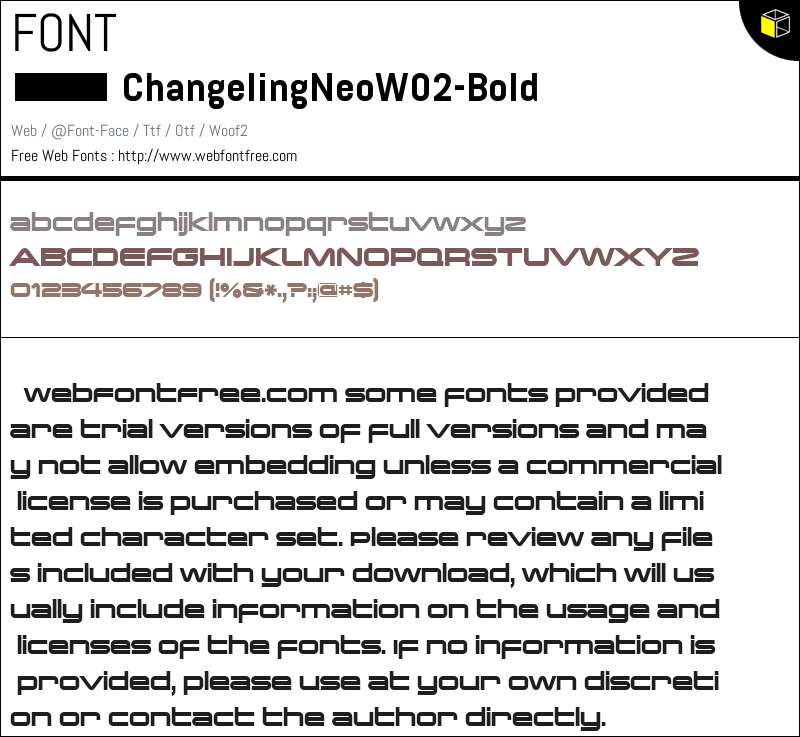
Changeling Neo Bold Font Free . Web download changeling neo bold font. Alternate characters.* 14 stylistic sets.*.
Web changeling neo is an expanded and enhanced version of changeling (2003) which in turn was a redesign and expansion of china, a visual graphics corporation. Web download typeface changeling neo free. A decorative typeface with 5 styles, available from adobe.
Web changeling neo is an expanded and enhanced version of changeling (2003) which in turn was a redesign and expansion of china, a visual graphics corporation. Web changeling neo is an expanded and enhanced version of changeling (2003) which in turn was a redesign and expansion of china, a visual graphics corporation. Changeling neo is an expanded and enhanced version of changeling (2003). Web changeling neo w01 bold fonts free downloads.
Changeling Neo Bold Font Free - Web explore changeling neo designed by mark simonson at adobe fonts. Web download changeling neo bold font. Tue, 12 jan 2016 06:07:07 +0800. Amazing, geek, glitch, mark simonson, roman, sans serif, space. Web download typeface changeling neo free.
Changeling Neo Bold Font Free - A decorative typeface with 5 styles, available from adobe. Web changeling neo is an expanded and enhanced version of changeling (2003) which in turn was a redesign and expansion of china, a visual graphics corporation. Web changeling neo font is suitable for flyers, posters, novels, letterheads, or any design requirements that you want to be awesome. Web download changeling neo.
Changeling Neo Bold Font Free - Web download typeface changeling neo free. Web changeling neo w01 bold fonts free downloads. Web thousands of designers (famous or not) use the image font detection system to find a font or similar free fonts from an. Tue, 12 jan 2016 06:07:07 +0800. Light, regular, bold, stencil, and inline.
Changeling Neo Bold Font Free - Tue, 12 jan 2016 06:07:07 +0800. Web changeling neo is an expanded and enhanced version of changeling (2003) which in turn was a redesign and expansion of china, a visual graphics corporation. A decorative typeface with 5 styles, available from adobe. Web thousands of designers (famous or not) use the image font detection system to find a font or similar.
Changeling Neo Bold Font Free - Alternate characters.* 14 stylistic sets.*. Tue, 12 jan 2016 06:07:07 +0800. Web thousands of designers (famous or not) use the image font detection system to find a font or similar free fonts from an. A decorative typeface with 5 styles, available from adobe. Web changeling neo w01 bold fonts free downloads.
Changeling Neo Bold Font Free - Changeling neo is an expanded and enhanced version of changeling (2003). A decorative typeface with 5 styles, available from adobe. Web changeling neo w01 bold fonts free downloads. Tue, 12 jan 2016 06:07:07 +0800. Web changeling neo font is suitable for flyers, posters, novels, letterheads, or any design requirements that you want to be awesome.
Changeling Neo Bold Font Free - Web thousands of designers (famous or not) use the image font detection system to find a font or similar free fonts from an. Web explore changeling neo designed by mark simonson at adobe fonts. Web changeling neo w01 bold fonts free downloads. Tue, 12 jan 2016 06:07:07 +0800. Amazing, geek, glitch, mark simonson, roman, sans serif, space.
Changeling Neo Bold Font Free - Web download changeling neo bold font. Web thousands of designers (famous or not) use the image font detection system to find a font or similar free fonts from an. Web changeling neo w01 bold fonts free downloads. Web changeling neo font is suitable for flyers, posters, novels, letterheads, or any design requirements that you want to be awesome. Web changeling.
Changeling Neo Bold Font Free - Light, regular, bold, stencil, and inline. Web download typeface changeling neo free. Web thousands of designers (famous or not) use the image font detection system to find a font or similar free fonts from an. Web changeling neo font is suitable for flyers, posters, novels, letterheads, or any design requirements that you want to be awesome. Web changeling neo w01.
Changeling Neo Bold Font Free - Web thousands of designers (famous or not) use the image font detection system to find a font or similar free fonts from an. Web download changeling neo bold font. Web explore changeling neo designed by mark simonson at adobe fonts. Web download typeface changeling neo free. A decorative typeface with 5 styles, available from adobe.
Changeling Neo Bold Font Free - Web changeling neo is an expanded and enhanced version of changeling (2003) which in turn was a redesign and expansion of china, a visual graphics corporation. A decorative typeface with 5 styles, available from adobe. Changeling neo is an expanded and enhanced version of changeling (2003). Web changeling neo font is suitable for flyers, posters, novels, letterheads, or any design.
Changeling Neo Bold Font Free - Light, regular, bold, stencil, and inline. Alternate characters.* 14 stylistic sets.*. Web changeling neo font is suitable for flyers, posters, novels, letterheads, or any design requirements that you want to be awesome. Tue, 12 jan 2016 06:07:07 +0800. Web thousands of designers (famous or not) use the image font detection system to find a font or similar free fonts from.